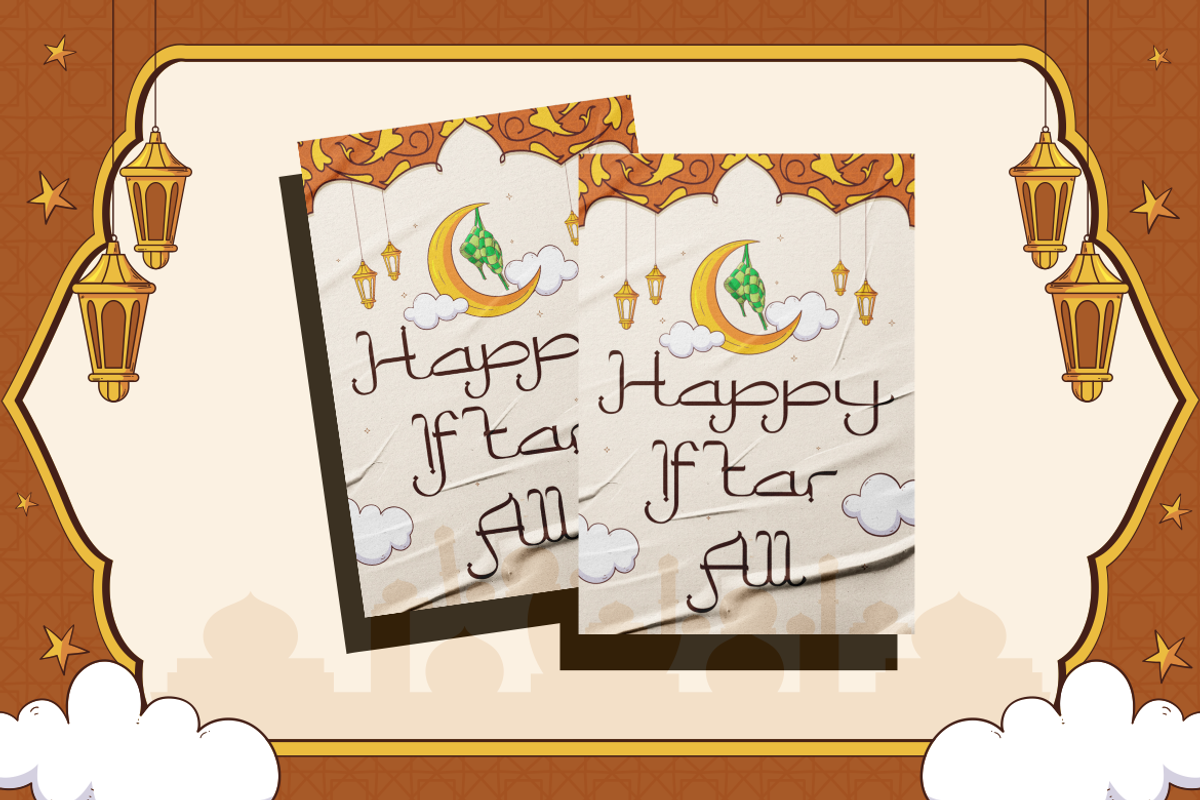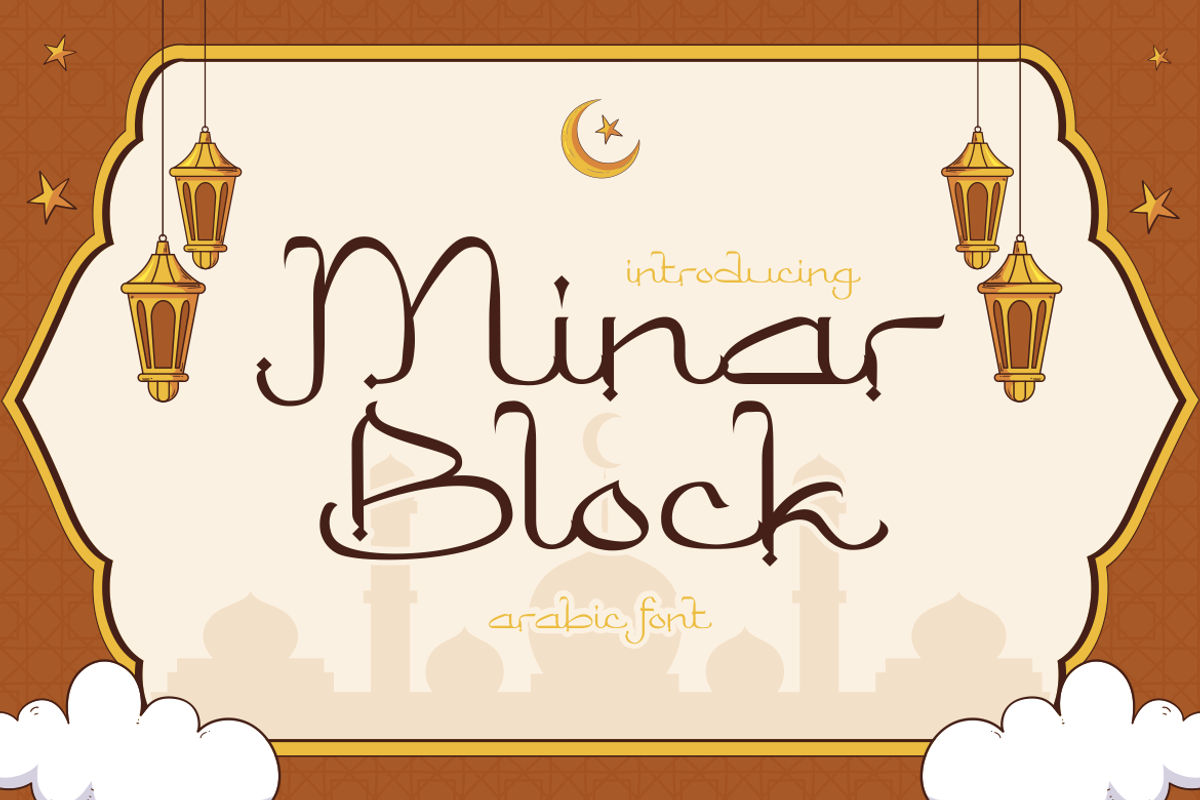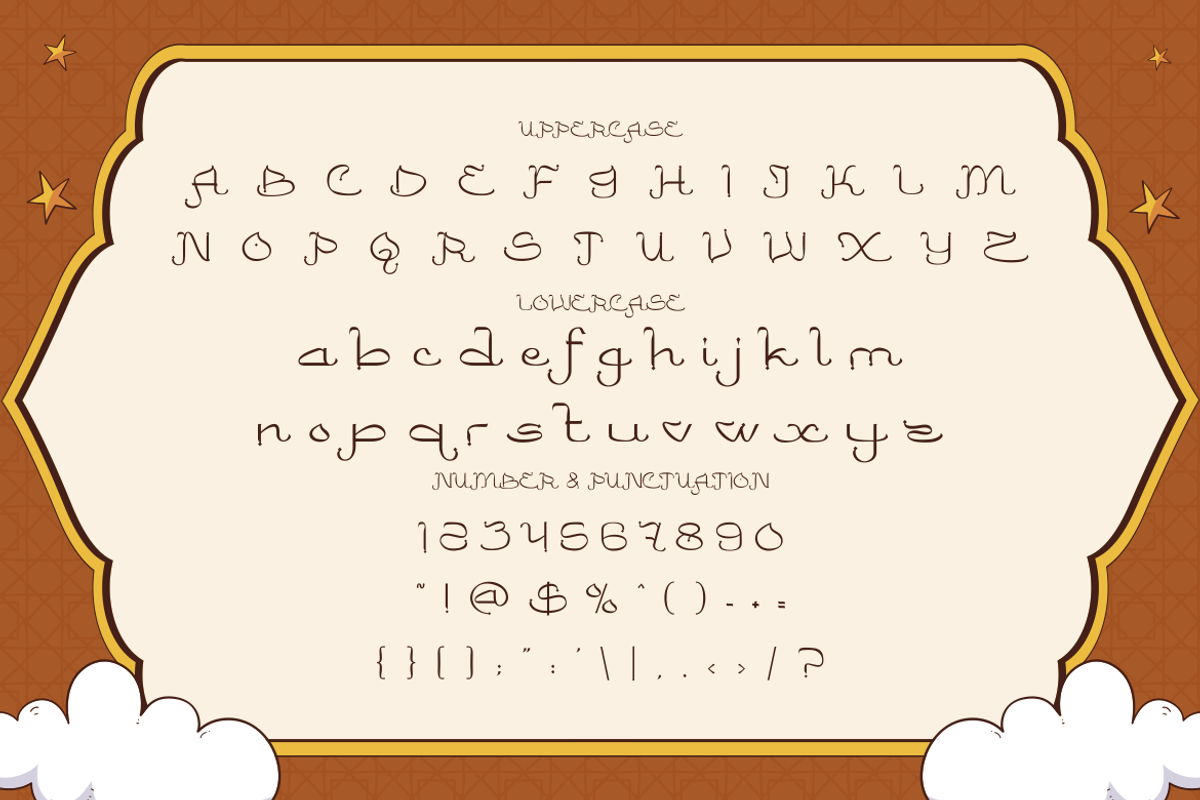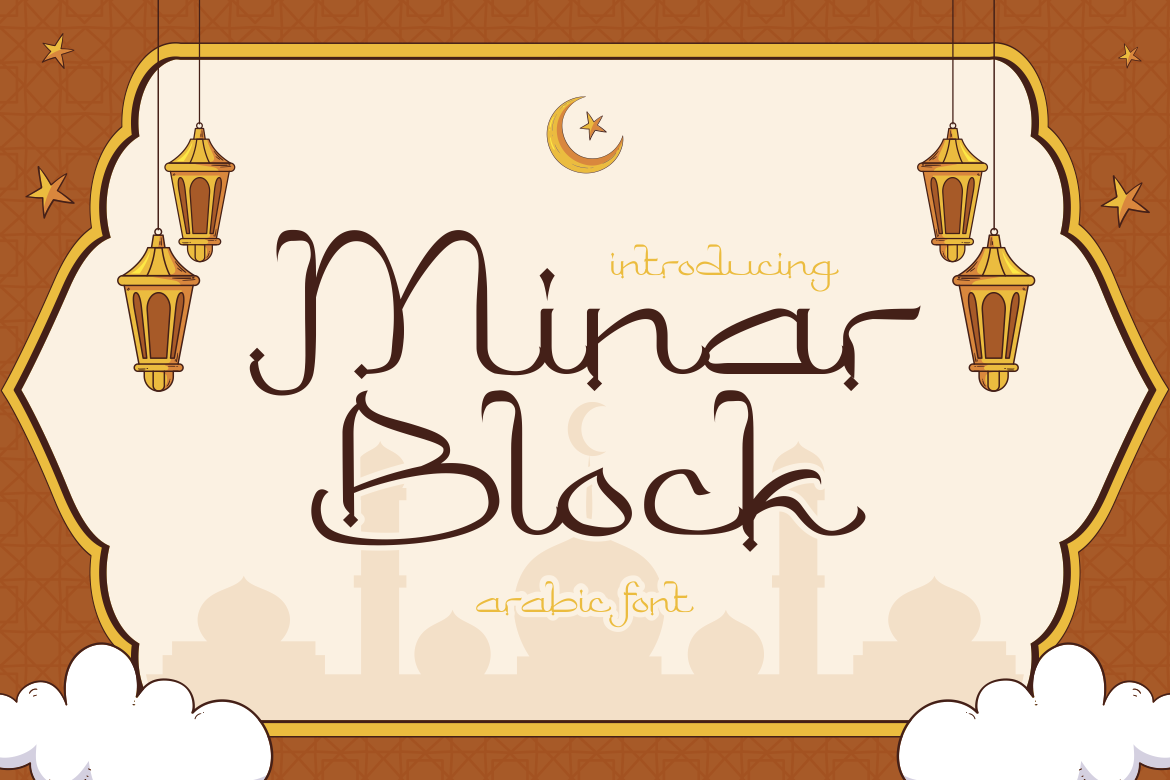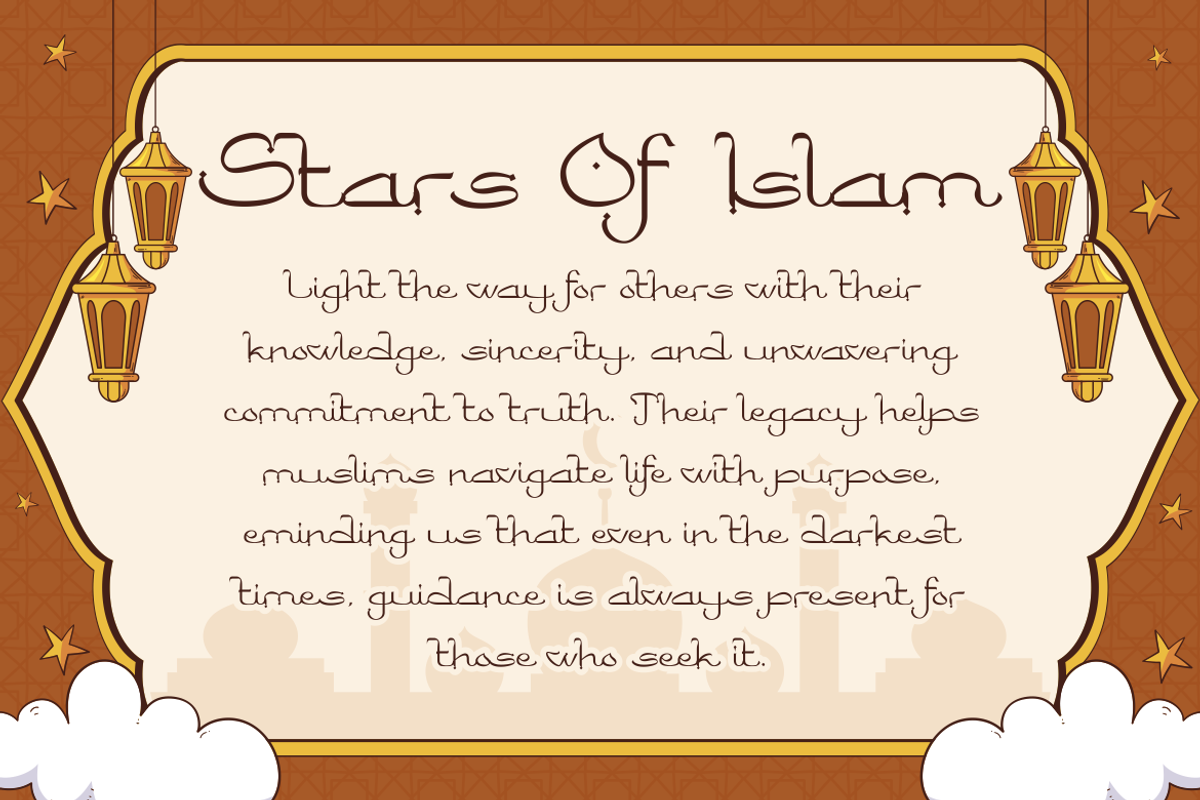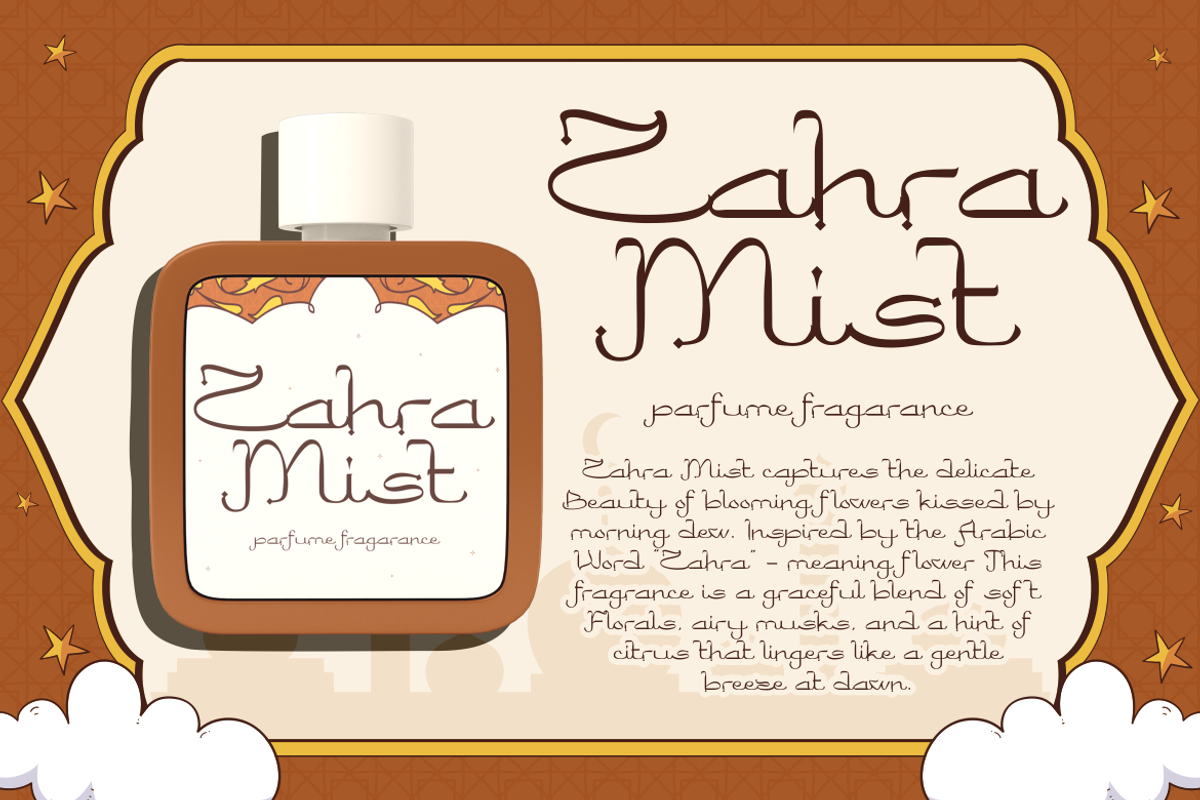
Minar Block - Arabic Font
Minar Block is a beautifully crafted Arabic-style font designed for modern Islamic themes. Its elegant curves and subtle strokes evoke the aesthetics of Middle Eastern calligraphy while maintaining strong readability. Each character features geometric precision, enhanced with ornamental flourishes that mirror traditional Arabic visual language. This font balances contemporary minimalism with classical nuance, making it a versatile option for both festive and commercial applications.
Perfect for Eid Mubarak greetings, mosque branding, Islamic products, or seasonal packaging, Minar Block instantly sets a spiritual and cultural tone. It performs well in both print and digital media, including invitations, labels, posters, or editorial titles. With its graceful character set, it harmonizes beautifully with Islamic patterns, gold accents, and soft backgrounds. Whether you're designing for Ramadan, perfume packaging, or community announcements, this font delivers authenticity and charm.